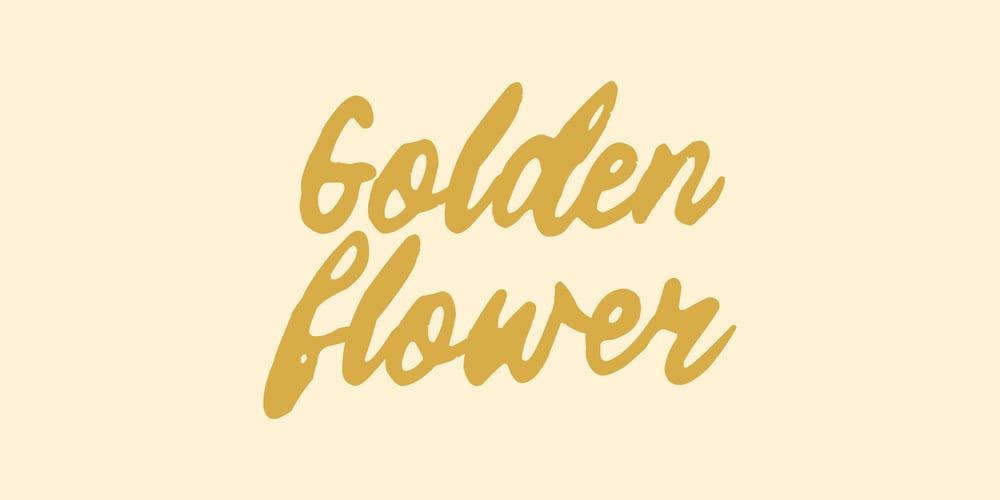
Golden Flower Font Family was designed by Winarno, Eko Kurniawan and published by Enbe Studio. Golden Flower contains 4 styles and family package options. This font is the perfect blend of boldness and uniqueness. With its bold handwriting and irregular strokes, it offers a dynamic and characterful appearance. Each letter is designed with a rough texture and different proportions, creating a lively and energetic impression.This font is perfect for creative projects that want to stand out and leave a strong impression. Its use is ideal in the design of posters, logos, product packaging and promotional materials that require a bold and aesthetic appearance. Golden Flower adds an artistic and modern touch to designs, making every project feel unique and unforgettable.With its flexibility, this font is able to adapt to various design styles, be it vintage, urban or contemporary themes. The irregular touch and uniqueness of each letter make this font a great choice for those who want to express boundless creativity.Have a great day! ๐